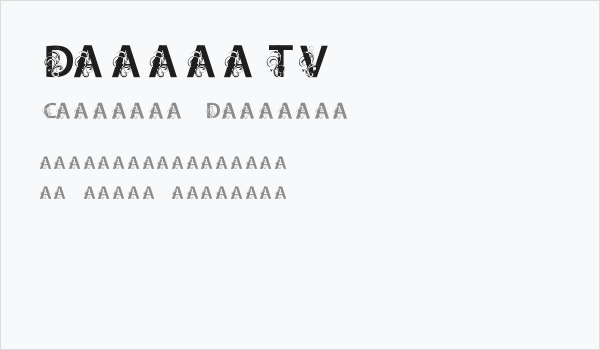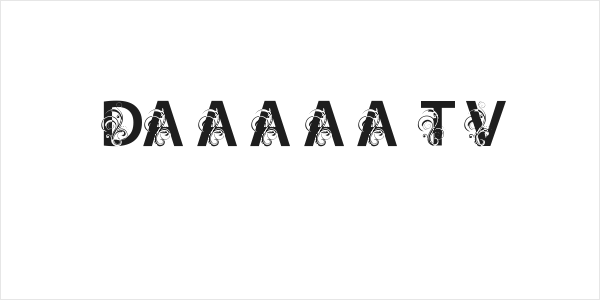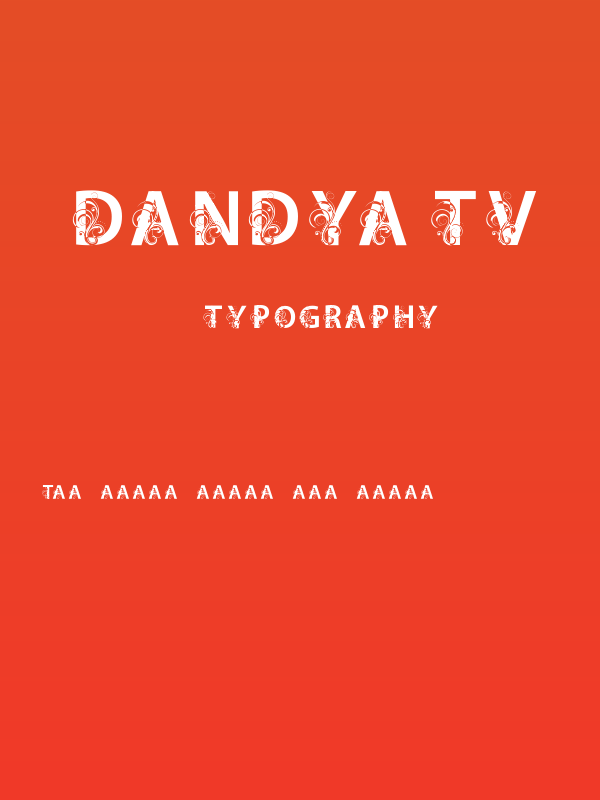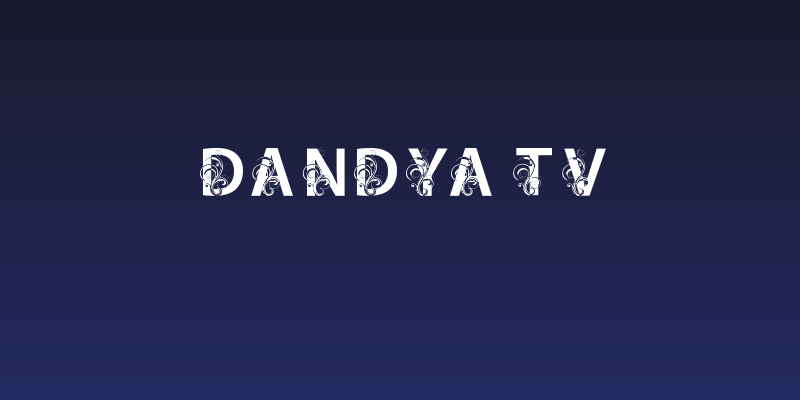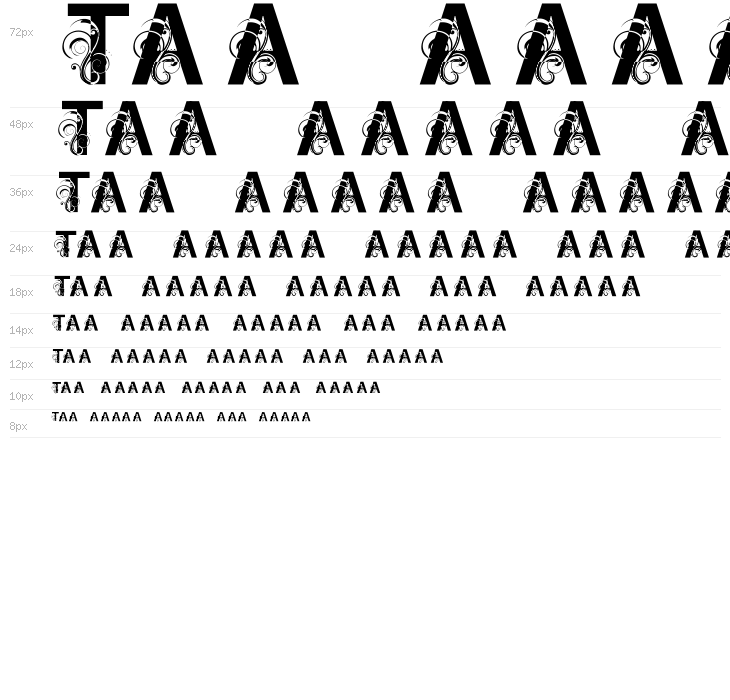
Dandy-TV Font
Dandy-TV Description
This font features a bold and striking design with a unique decorative flair. Each character is adorned with intricate flourishes that give it an ornate and artistic appearance. The letters are bold and solid, providing a strong visual impact, while the embellishments add a touch of elegance and sophistication. This combination makes it ideal for projects that require a blend of strength and style. The font's decorative nature makes it stand out, capturing attention with its detailed and elaborate design.
Proposed ProjectsIdeal for branding, posters, invitations, and any design requiring a bold, artistic touch.